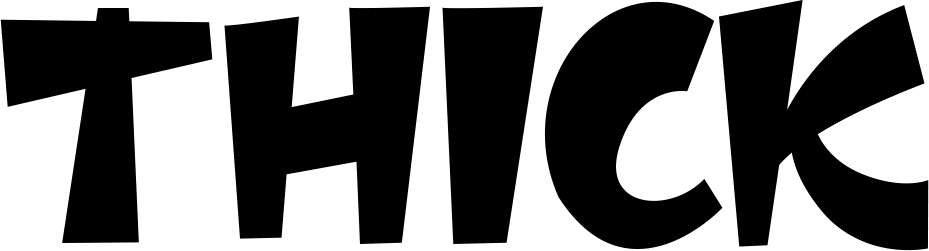
Thick Font
With a pack of robust but smooth characters to lend a playful modern touch to your typography, Thick elevates the quality of your work on so many levels. Just make sure you don’t necessarily need numbers and lowercase for your design, and you’ll be good to go!
Capturing a fun exciting style via its energetic letters, this comic font comes in handy for loads of projects like websites, games, fun invitations, and other creative designs.